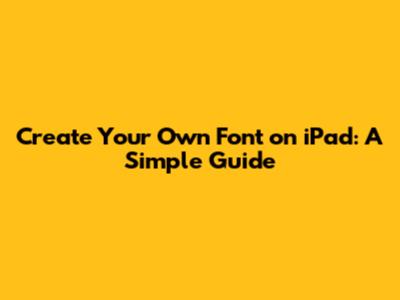
- Download the Template: Calligraphr provides a template that you can download as a PDF. This template includes boxes for each letter, number, and symbol.
- Print and Draw: Print out the template and use a pen or marker to draw each character in the corresponding box. Don't worry about perfection; the charm of a handwritten font is in its imperfections.
- Scan and Upload: Once you've filled out the template, scan it using your iPad's camera or a scanning app. Upload the scanned image to Calligraphr.
- Generate Your Font: Calligraphr will automatically convert your drawings into a font file that you can download and install on your iPad or computer.
- Easy to use, especially for beginners.
- Great for creating handwritten fonts.
- Free version available with limited features.
- Requires printing and scanning.
- Less control over fine details compared to other apps.
- Connect with Remote Desktop: Use the remote desktop app to connect to your computer from your iPad.
- Create Your Font: Use FontForge on your computer to create and edit your font. You can use your Apple Pencil and iPad as a graphics tablet for drawing characters.
- Powerful and versatile.
- Free and open-source.
- Offers precise control over every aspect of your font.
- Steeper learning curve.
- Requires a computer and remote desktop app.
- May not be as intuitive for beginners.
- Create Characters in Procreate: Use Procreate to draw each character of your font. You can create each character on a separate layer or canvas.
- Export as PNG: Export each character as a PNG file with a transparent background.
- Use iFont to Create the Font: Use iFont to import the PNG files and create your font. iFont allows you to adjust the spacing and kerning of your characters.
- Leverages the drawing capabilities of Procreate.
- Relatively easy to use.
- Offers good control over character design.
- Requires two apps.
- May not be as precise as dedicated font editors.
- Draw directly in the App: Use your Apple Pencil to draw directly into the App.
- Export Font: Export your Font to use on other platforms.
- Easy to use
- Good for trial fonts
- Basic font editor
Hey guys! Ever thought about creating your own font right on your iPad? It sounds super cool, right? Well, guess what? It's totally doable, and I'm here to walk you through the whole process. Whether you're a designer, artist, or just someone who loves to tinker, making your own font can add a unique touch to your projects. So, let's dive in and get those creative juices flowing!
Why Create Your Own Font?
Before we jump into the how-to, let's chat about why you might want to create your own font in the first place. There are tons of reasons, and honestly, it's not just for the pros. Font creation can be a fantastic way to express your individuality and bring a personal touch to your digital work.
Stand Out from the Crowd
In a world drowning in generic fonts like Arial and Times New Roman, having a custom font can make your designs pop. Think about it: every poster, presentation, or social media graphic you create will have a unique flair that no one else can replicate. If you're a brand, this is invaluable. A custom font can become part of your brand identity, making your marketing materials instantly recognizable.
For instance, big brands often invest heavily in creating custom typefaces. These fonts aren't just aesthetically pleasing; they communicate the brand's personality. A playful, rounded font might be perfect for a children's brand, while a stark, sans-serif font could convey a sense of modernity and efficiency for a tech company. Creating your own font gives you that same level of control and distinction, even on a smaller scale.
Unleash Your Creativity
Font creation is an art form. It allows you to explore your creativity in ways you might not have thought possible. Each glyph (that's a fancy word for each letter, number, and symbol in a font) is a mini work of art. You get to decide on every curve, line, and angle. You're not just picking a font; you're crafting one from scratch.
Experiment with different styles. Maybe you want a handwritten feel? Or perhaps a futuristic, geometric look? The possibilities are endless. This process can be incredibly rewarding as you see your vision come to life, character by character. It’s also a fantastic exercise in precision and attention to detail, skills that translate well into other areas of design and art.
Enhance Your Projects
Imagine designing a children’s book with a font that perfectly matches the whimsical illustrations, or creating a logo with a unique typeface that captures the essence of the brand. Custom fonts can elevate your projects from ordinary to extraordinary.